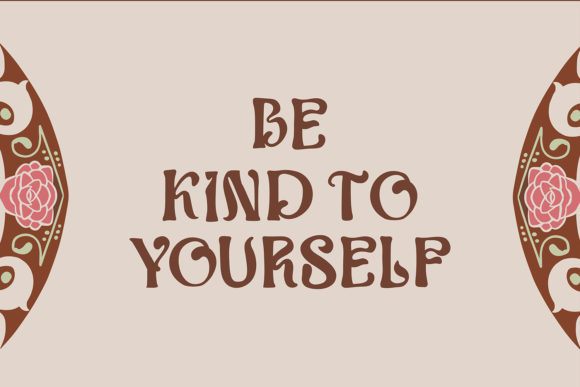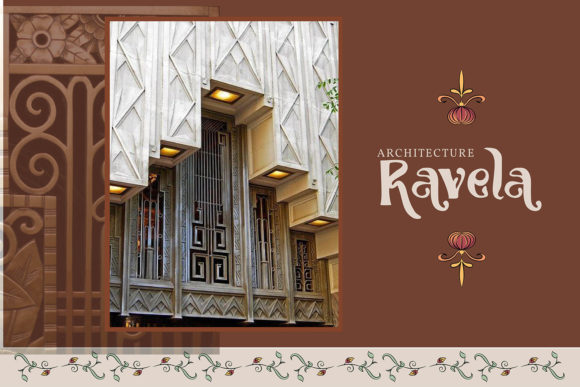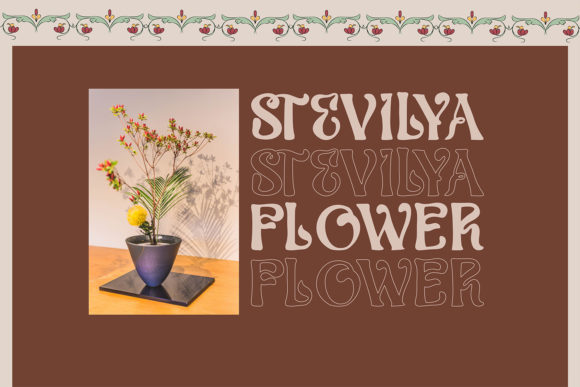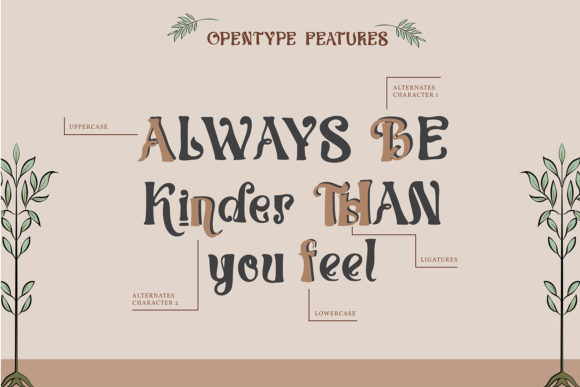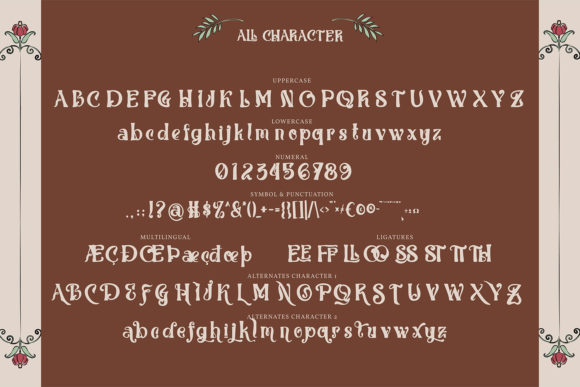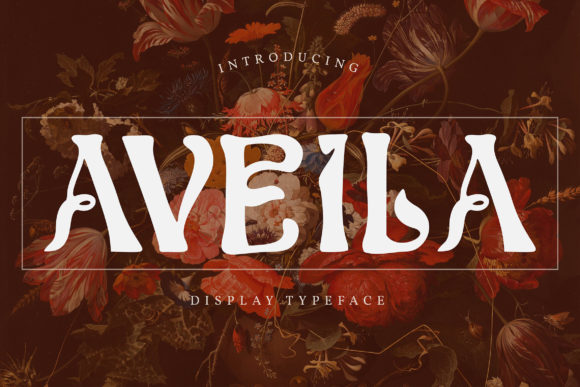
Aveila Font: Elevate Your Creations with a Distinct and Imposing Vintage Style
In the world of typography, fonts play a crucial role in conveying the tone and aesthetic of a design. For designers and crafters looking to add a touch of elegance and sophistication to their creations, the Aveila Font is an excellent choice. This vintage-styled display font is not only trendy and stylish but also versatile, making it perfect for a wide range of design projects.
What Makes Aveila Font Stand Out?
Aveila Font is a distinct and imposing font that commands attention. Its vintage style is reminiscent of classic typography, yet it has a modern twist that makes it perfect for contemporary designs. The font’s unique characteristics include:
• Distinct and Imposing: Aveila Font has a strong presence that makes it ideal for headlines, titles, and other display text.
• Vintage Styled: The font’s classic look and feel evoke a sense of nostalgia and sophistication.
• Trendy and Stylish: Despite its vintage inspiration, Aveila Font is undeniably modern and stylish, making it perfect for designs that require a touch of elegance.
The Benefits of PUA Encoding
Aveila Font is PUA (Private Use Area) encoded, which means that it offers a wide range of glyphs and swashes that can be accessed with ease. This feature makes the font incredibly versatile and user-friendly. With PUA encoding, designers can:
• Access a wide range of glyphs: The font includes a variety of glyphs that can be used to add visual interest to designs.
• Easily access swashes: The PUA encoding allows designers to quickly and easily access the font’s swashes, making it simple to add a touch of elegance to designs.
• Enjoy greater flexibility: With PUA encoding, designers have more freedom to experiment with different design elements, making it easier to create unique and eye-catching designs.
Aveila Font is an excellent choice for designers and crafters looking to elevate their creations. The font’s versatility and style make it perfect for a wide range of design projects, including:
• Logos and branding: Aveila Font’s distinct and imposing style makes it ideal for logos and branding materials.
• Signs and posters: The font’s vintage style and modern twist make it perfect for signs and posters that require a touch of elegance.
• Packaging and product design: Aveila Font’s stylish and sophisticated look makes it an excellent choice for packaging and product design.
• Digital designs: The font’s versatility and style make it perfect for digital designs, including social media graphics, website headers, and more.
In conclusion, Aveila Font is a distinct, imposing, and vintage-styled display font that is perfect for designers and crafters looking to elevate their creations. With its PUA encoding and wide range of glyphs and swashes, this font offers unparalleled versatility and style. Whether you’re working on a logo, sign, packaging, or digital design, Aveila Font is an excellent choice. Its trendy and stylish look is sure to make your designs stand out and leave a lasting impression.